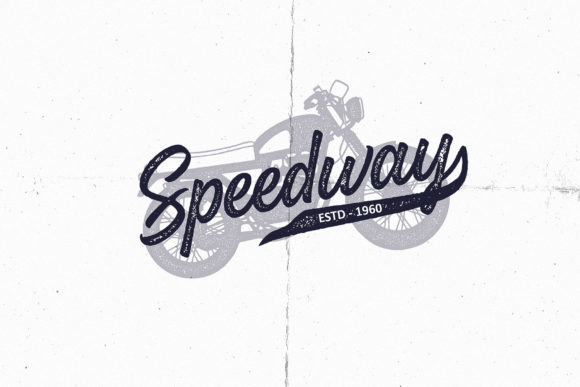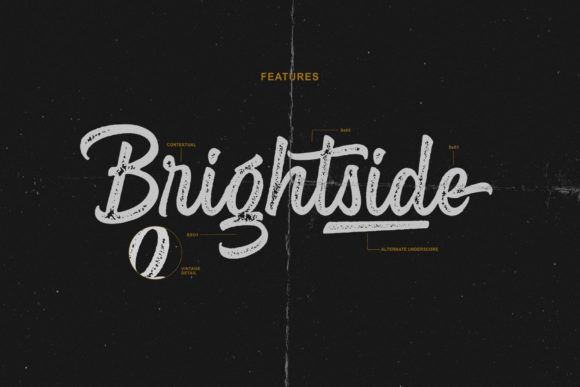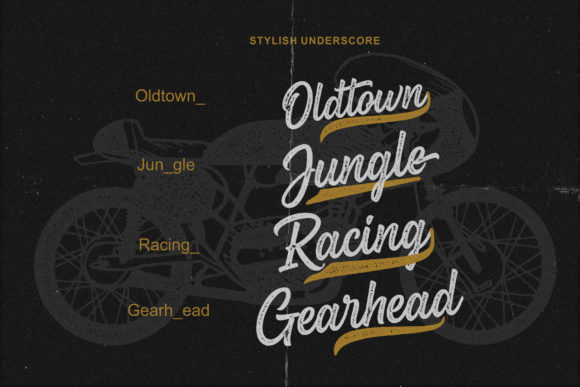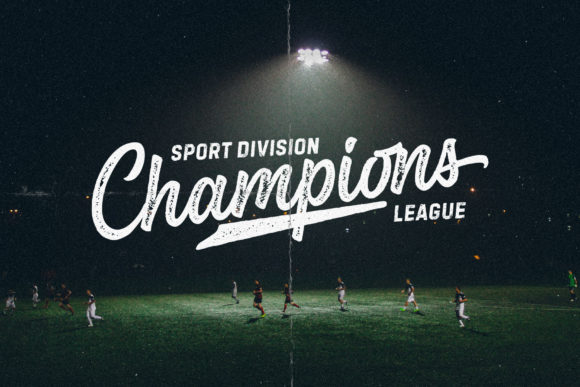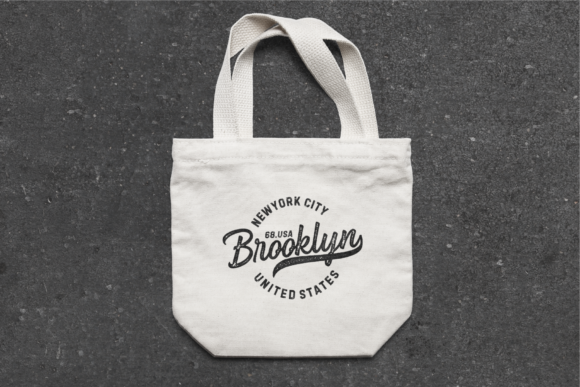
Introducing Brightside Font: Elevate Your Designs with a Vintage Twist
Are you tired of using the same old fonts in your designs? Look no further than Brightside Font, a stunning script font with a vintage flair that’s sure to make your creations stand out. With its unique and elegant style, Brightside is the perfect choice for designers and crafters looking to add a touch of sophistication to their work.
The Charm of Brightside Font
Brightside Font is a beautiful script font that exudes a sense of nostalgia and charm. Its vintage style is reminiscent of classic typography from the early 20th century, with flowing lines and intricate details that give it a distinctive look. Whether you’re working on a branding project, a wedding invitation, or a craft project, Brightside Font is sure to add a touch of elegance and whimsy to your design.
What Makes Brightside Font Special?
So, what sets Brightside Font apart from other fonts out there? Here are just a few features that make it a standout:
- Unique and elegant style: Brightside Font has a distinctive vintage flair that’s sure to turn heads.
- Highly legible: Despite its ornate style, Brightside Font is highly legible, making it perfect for use in a variety of design applications.
- Versatile: Brightside Font can be used in a range of design projects, from branding and advertising to crafting and DIY projects.
How to Use Brightside Font in Your Designs
Ready to give Brightside Font a try? Here are a few ideas for using it in your designs:
- Branding and logos: Use Brightside Font to create a unique and memorable logo for your business or brand.
- Wedding invitations and stationery: Add a touch of elegance to your wedding invitations, save-the-dates, and other stationery with Brightside Font.
- Crafting and DIY projects: Use Brightside Font to add a personal touch to your crafting and DIY projects, such as signs, banners, and other decorative items.
- Advertising and marketing materials: Use Brightside Font to create eye-catching advertising and marketing materials, such as flyers, brochures, and posters.
Tips for Getting the Most Out of Brightside Font
Here are a few tips for getting the most out of Brightside Font:
- Experiment with different sizes and colors: Play around with different sizes and colors to find the perfect combination for your design.
- Pair it with other fonts: Try pairing Brightside Font with other fonts to create a unique and interesting contrast.
- Use it sparingly: Because Brightside Font is so elegant and eye-catching, it’s best to use it sparingly to avoid overwhelming your design.
| Author | Andrie Nugrie |
In conclusion, Brightside Font is a beautiful and versatile script font that’s perfect for designers and crafters looking to add a touch of vintage charm to their work. With its unique and elegant style, high legibility, and ease of use, Brightside Font is sure to become a go-to choice for a wide range of design applications. So why wait? Give Brightside Font a try today and see the difference it can make in your designs!
Brightside Font: The Perfect Choice for Designers and Crafters
In conclusion, Brightside Font is a beautiful and versatile script font that’s perfect for designers and crafters looking to add a touch of vintage charm to their work. Whether you’re working on a branding project, a wedding invitation, or a craft project, Brightside Font is sure to make your design stand out. So why wait? Download Brightside Font today and start creating stunning designs that will leave a lasting impression!